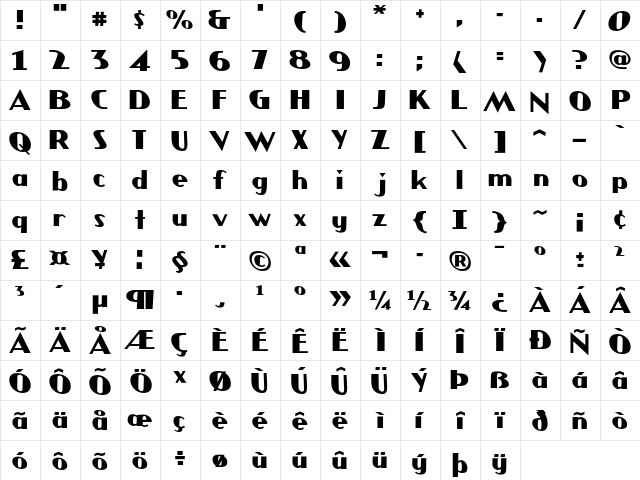
JMH COMICS Bold
Design Context for JMH COMICS Typeface
JMH COMICS trades formality for fun, with bouncy, characterful letterforms that bring warmth and energy to any project.
Font Pairing: Pairs well with a rounded or humanist sans for body copy, maintaining the friendly tone without relying on JMH COMICS to carry extended reading.
Pro Tip: Avoid using JMH COMICS for long passages of text — it works best for headlines, labels, and short calls to action.